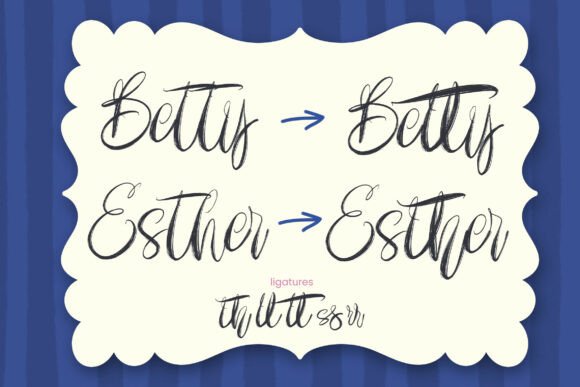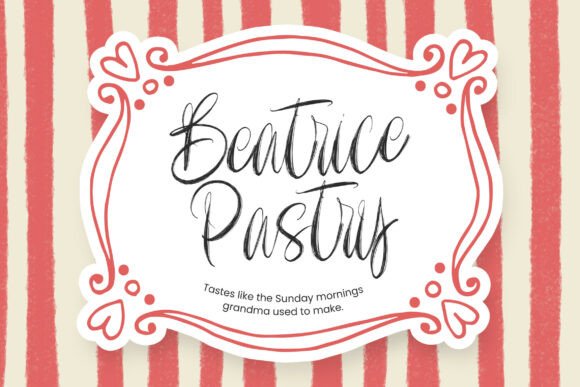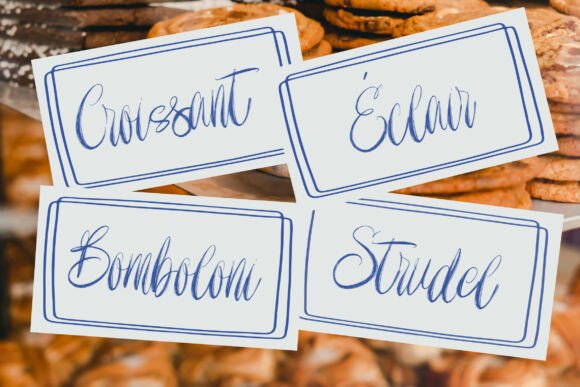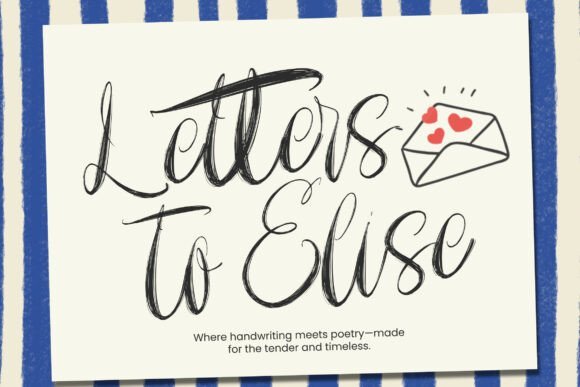
Introduction to Letters to Elise Font
Letters To Elise is a modern classic-style script font inspired by classic handwriting in books.
This font comes complete with style sets, contextual alternates, ligatures, and also multilingual support that adds to the aesthetics that make your work more attractive This font is perfect for your creative projects such as Logotype, printed quotes, invitations, cards, product packaging, headers, Letterheads, Apparel, Web Design, Magazines, Books, etc.